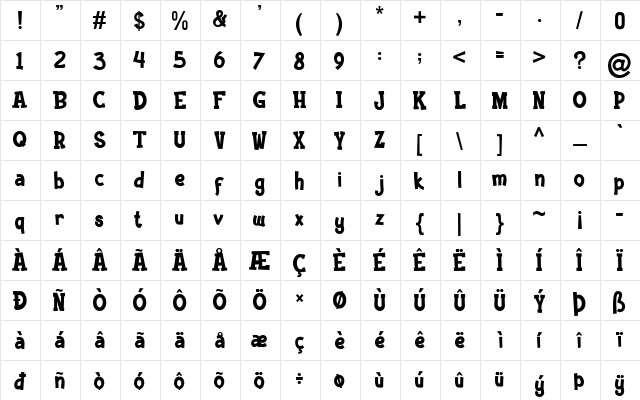
Funkie Bunny Regular
Design Context for Funkie Bunny Typeface
Funkie Bunny trades formality for fun, with bouncy, characterful letterforms that bring warmth and energy to any project.
Font Pairing: Pairs well with a rounded or humanist sans for body copy, maintaining the friendly tone without relying on Funkie Bunny to carry extended reading.
Pro Tip: Avoid using Funkie Bunny for long passages of text — it works best for headlines, labels, and short calls to action.